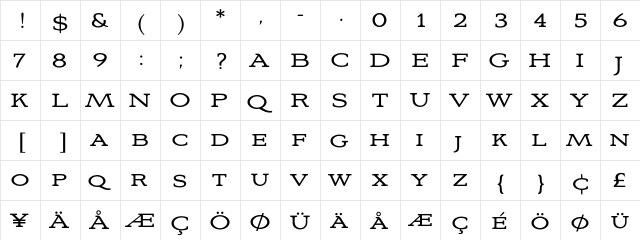
AvianoSlabLight Regular
| Foundry | by Jeremy Dooley |
| Designer | Jeremy Dooley |
Design Context for AvianoSlabLight Typeface
AvianoSlabLight combines the readability of serif typography with the visual weight of a slab construction, resulting in a typeface that feels both authoritative and approachable. The delicate stroke weight brings airiness and refinement to layouts.
Suited to magazines, political campaign materials, bold packaging, and any setting where authority matters.
Pro Tip: Use AvianoSlabLight for headlines and subheadings where its slab serifs can make an impression. It also holds up well in mid-size body copy thanks to its sturdy construction.